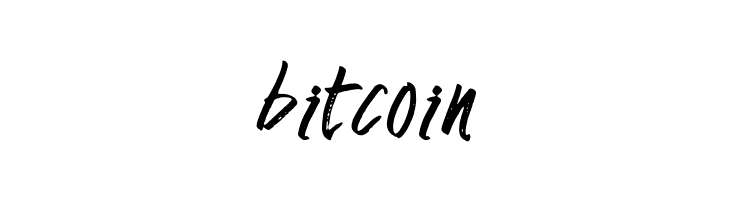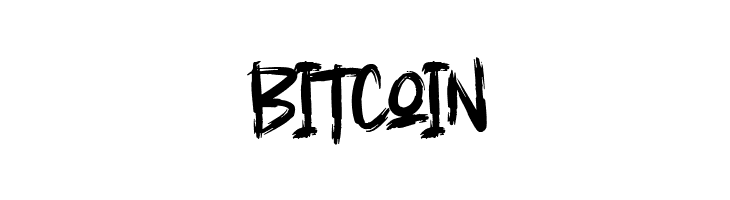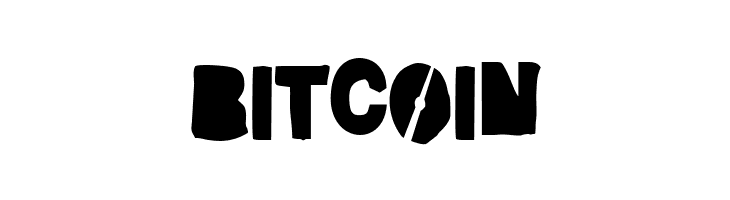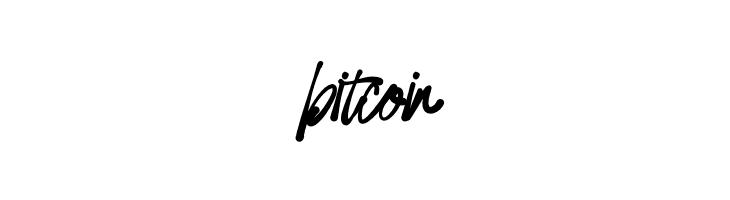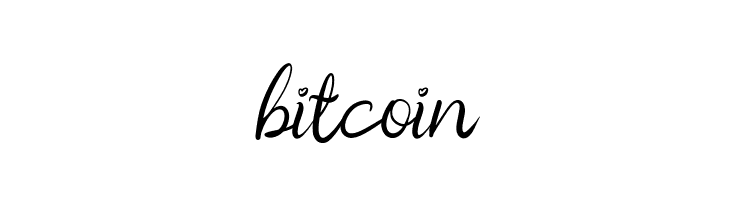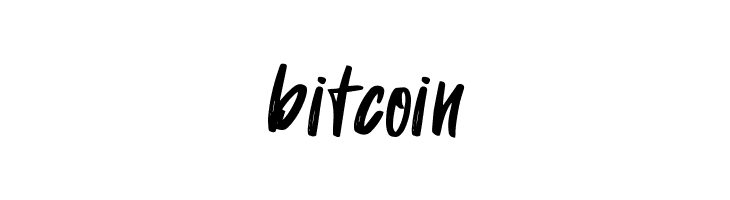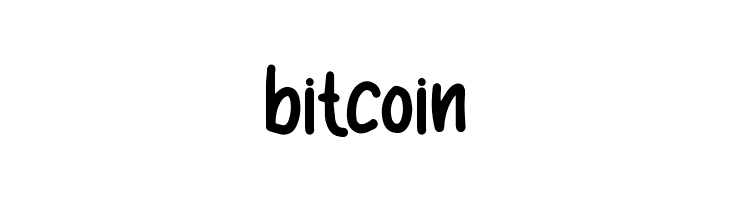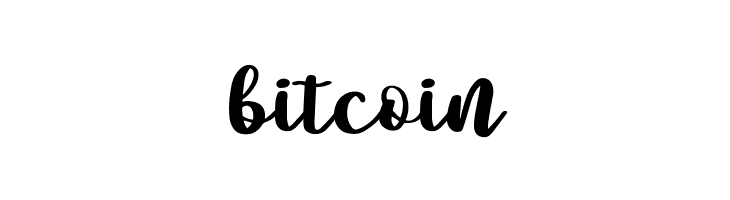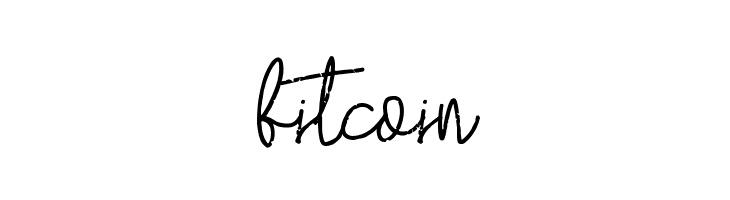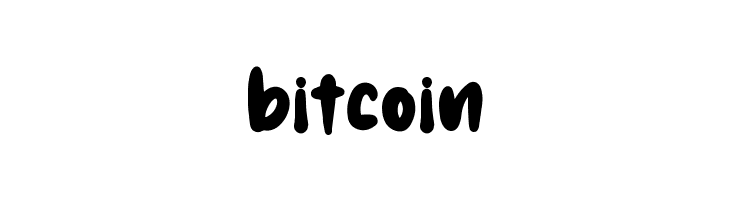
A bold, cursive script font with a dynamic, handwritten style.
A bold, expressive brush-style font with a dynamic, handwritten appearance.
An elegant and flowing script font with graceful curves and dynamic strokes.
A bold, elegant script font with high contrast and fluid strokes.
A flowing, cursive script font with elegant, handwritten characteristics.
An elegant, flowing script font with smooth, cursive strokes and graceful curves.
A graceful, fluid handwritten font with elegant cursive strokes.
A bold, brush-style font with dynamic, jagged strokes.
A bold, playful font with irregular, chunky characters and a whimsical style.
A bold, expressive handwritten font with fluid, interconnected strokes.
A bold, dynamic font with a modern yet retro flair.
A smooth, flowing script font with a handwritten style.
A flowing, cursive font with elegant loops and a handwritten style.
A lively handwritten font with dynamic strokes and a playful style.
A bold, handwritten font with dynamic strokes and a playful, informal style.
A playful, rounded handwritten font with smooth curves and a friendly appearance.
A bold, playful script font with a hand-drawn, modern style.
A distressed, handwritten font with a rugged yet elegant style.
A playful, bold font with rounded, thick strokes and a whimsical touch.
An artistic and whimsical font with elongated, flowing letterforms.
A playful, handwritten font with smooth curves and a casual style.
A playful, hand-drawn font with rounded, bold characters.
A playful, hand-drawn style font with a casual and organic feel.
A bold, textured, hand-drawn style font with a playful and artistic appearance.
A bold, brush script font with a dynamic, handwritten style.
A bold, brush-style font with dynamic, hand-painted strokes.
A bold, hand-painted style font with dynamic, brush-like strokes.
A modern, handwritten script font with fluid, elegant strokes.